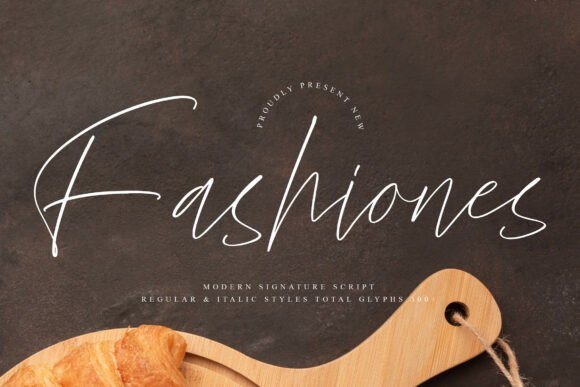
Introducing Fashiones Font: Elevate Your Design with Elegance and Sophistication
In the world of typography, few fonts manage to capture the essence of luxury and class as effectively as Fashiones. This sleek and sophisticated modern signature script, crafted by Operatype, is designed to bring an elegant handwritten flair to your premium design needs. With its flowing, natural strokes and refined curves, Fashiones exudes a sense of high-end style that is sure to elevate your branding, logos, and visual identities to new heights.
The Perfect Font for Upscale Branding and Design
Fashiones is more than just a font – it’s a statement piece. Its unique blend of elegance and sophistication makes it the perfect choice for designers and crafters looking to add a touch of luxury to their work. Whether you’re designing for packaging, apparel, event stationery, or editorial spreads, Fashiones is the ideal font to help you create a lasting impression.
One of the key features that sets Fashiones apart is its ability to convey a sense of personalized style. The font’s flowing, natural strokes and refined curves give it a distinctly handwritten feel, making it perfect for designs that require a touch of authenticity and elegance. Whether you’re creating a logo, branding materials, or marketing collateral, Fashiones is sure to help you stand out from the crowd.
Key Features of Fashiones Font
So, what makes Fashiones such a standout font? Here are just a few of its key features:
- Sleek and sophisticated design: Fashiones boasts a modern signature script design that is both elegant and refined.
- Flowing, natural strokes: The font’s flowing strokes give it a distinctly handwritten feel that is perfect for designs that require a touch of personality.
- Refined curves: Fashiones’ refined curves add to its sense of luxury and sophistication, making it perfect for high-end branding and design.
- Fully PUA encoded: Fashiones is fully PUA encoded, ensuring seamless access to all characters, swashes, and glyphs without the need for additional software.
Benefits of Using Fashiones Font
So, why should you choose Fashiones for your design needs? Here are just a few of the benefits of using this exceptional font:
- Effortless elegance: Fashiones makes it easy to add a touch of elegance and sophistication to your designs, without requiring hours of tedious editing or fine-tuning.
- Full creative control: With Fashiones, you have full creative control over your designs, thanks to its seamless integration with popular design software.
- Time-saving: Fashiones is designed to be easy to use, saving you time and effort when working on your designs.
- Versatile: Fashiones is a versatile font that can be used for a wide range of design applications, from branding and logos to packaging and editorial spreads.
Who Can Benefit from Fashiones Font?
Fashiones is a font that can benefit a wide range of designers and crafters, including:
- Graphic designers: Fashiones is perfect for graphic designers looking to add a touch of luxury and sophistication to their branding and design work.
- Logos and branding specialists: The font’s elegant and refined design makes it ideal for logos and branding materials that require a high-end feel.
- Fashion designers: Fashiones is a great choice for fashion designers looking to create stylish and elegant visual identities for their brands.
- Stationery and packaging designers: The font’s flowing, natural strokes and refined curves make it perfect for stationery and packaging designs that require a touch of elegance.
| Author | Operatype.Co |
In conclusion, Fashiones is a truly exceptional font that is sure to elevate your design work to new heights. With its sleek and sophisticated design, flowing natural strokes, and refined curves, Fashiones exudes luxury and class, making it perfect for upscale branding, chic logos, and fashionable visual identities. Whether you’re a graphic designer, logo specialist, fashion designer, or stationery and packaging designer, Fashiones is a font that is sure to meet your premium design needs.